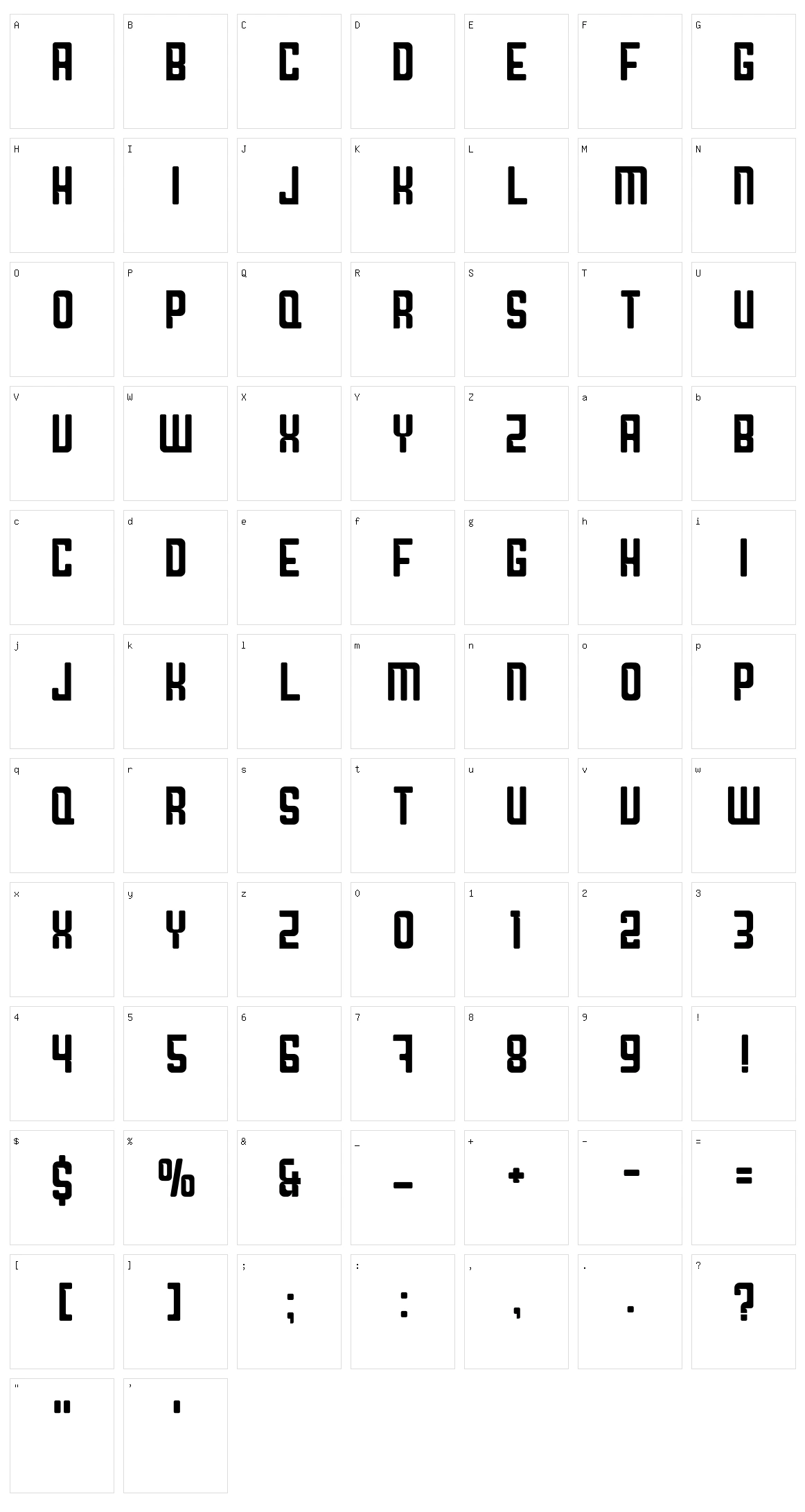
Downtown font was created by Nelson Fraga and Roman Tunik.
Latin version: Nelson Fraga.
Cyrillic version: Roman Tunik.
The Downtown Font's a type inspired by the city life and everything
that defines a city: it's colors and the streets and their sounds.